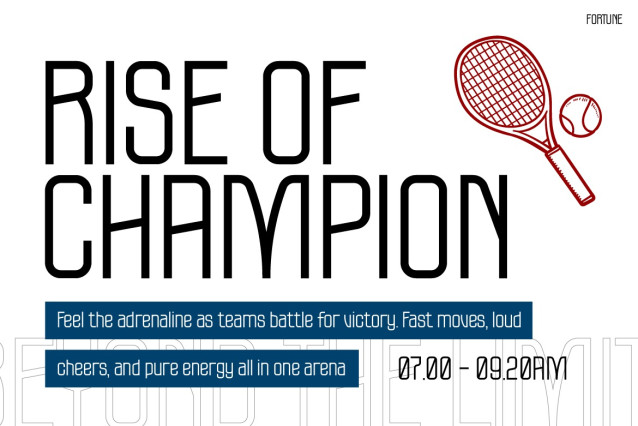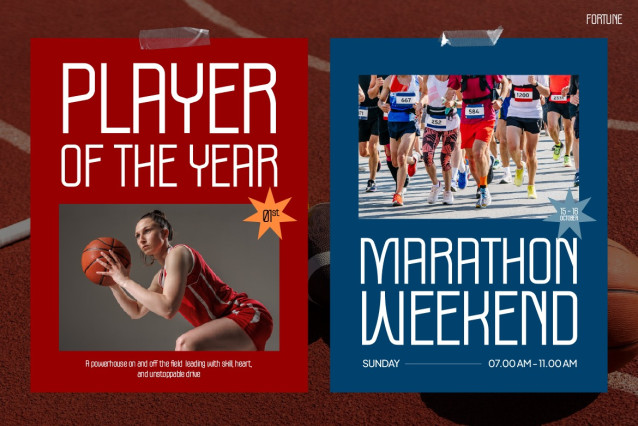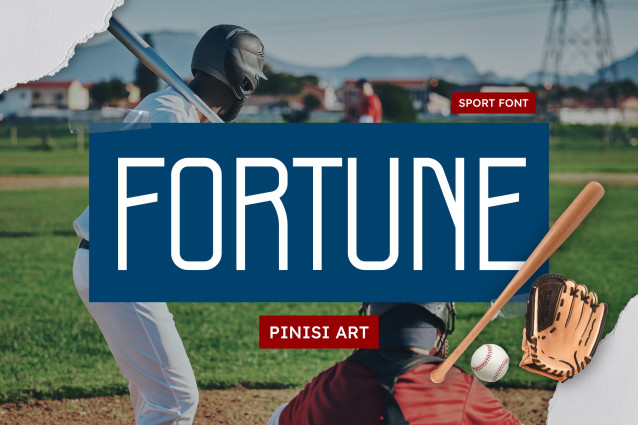
Fortune Font
Fortune Font is a modern and energetic typeface that captures the excitement, discipline, and spirit of competition. Its tall, geometric structure and clean bold lines make it stand out in any design. Moreover, its sharp edges and consistent rhythm express power, motion, and determination—making it perfect for professional sports graphics and branding. Therefore, every word written with this font feels confident, fast, and full of purpose.
The beauty of Sport Font Fortune lies in its balance between strength and simplicity. Each letter is designed with precision to enhance readability and visual impact. In addition, the uppercase delivers intensity and leadership, while the lowercase offers versatility and flow. As a result, the font easily adapts to different media, from dynamic sports posters to event promotions and motivational content. Furthermore, its modern and athletic vibe adds professionalism and energy to every project.
Sport Font Fortune is ideal for designers, athletes, and content creators who want to bring strength and inspiration into their visuals. It suits sportswear branding, gym promotions, team identity design, and athletic campaigns. Additionally, marketers and event organizers can use it for posters, banners, social media content, or YouTube thumbnails to create consistent and high-impact visuals.
Because of its clear and modern shape, it also works perfectly for typography-based designs that need to express speed and power. Whether you’re designing for football, baseball, racing, or fitness, this font delivers confidence and drive.